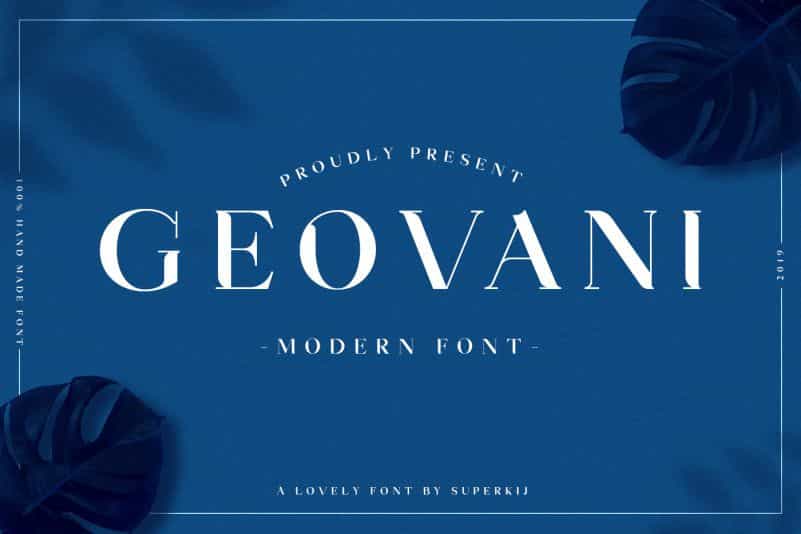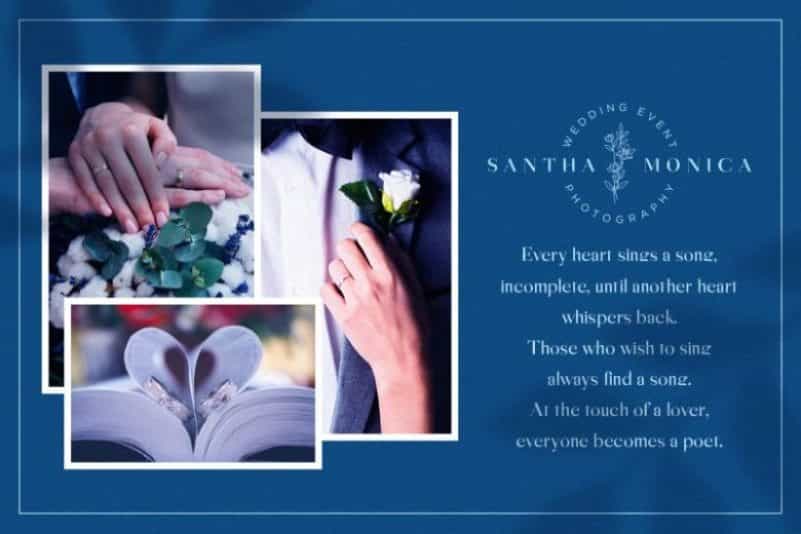
Geovani Font was created and is posted by Adhi Nugraha. It is a modern serif font having a pronounced character. It is also versatile for other projects like stationery invitations, social media, logos, weddings, branding, graphic design with extra swashes. and may be used together with other classes of serif fonts, based on the project that you intend to work on.